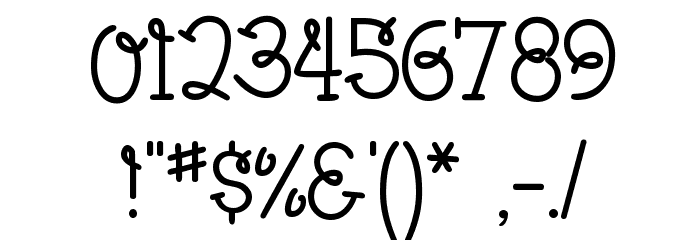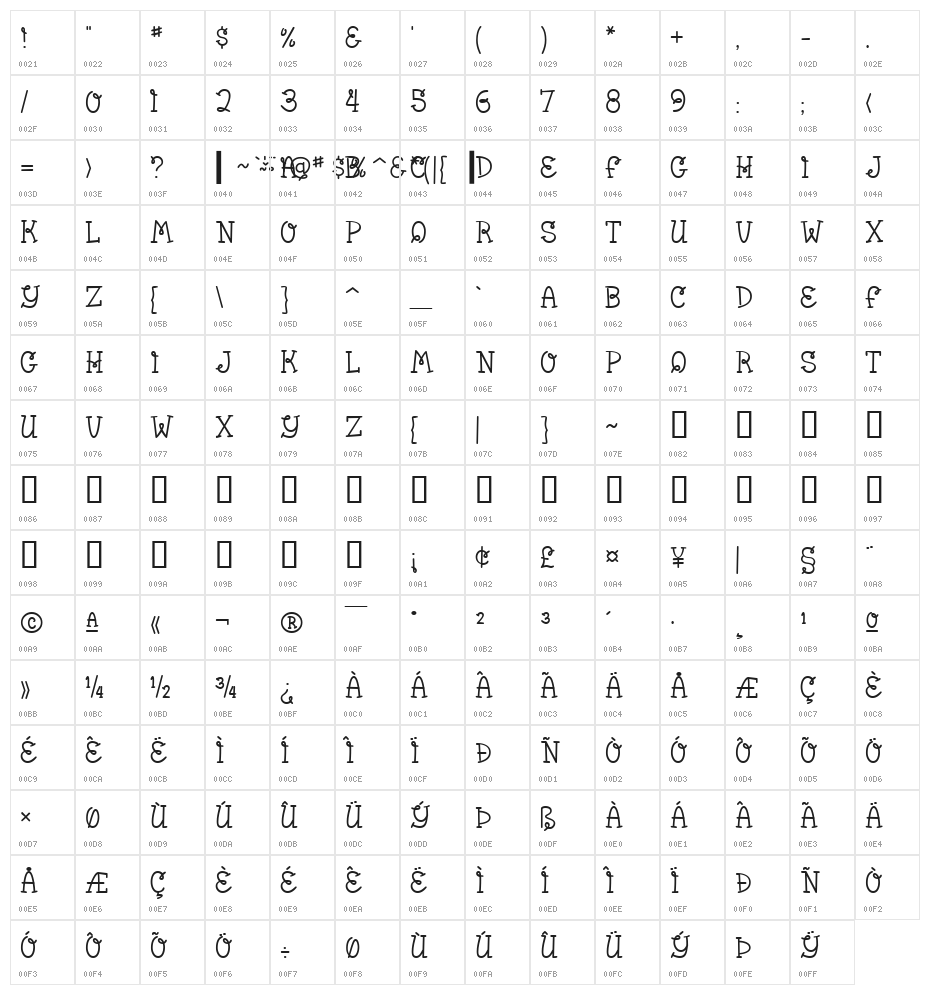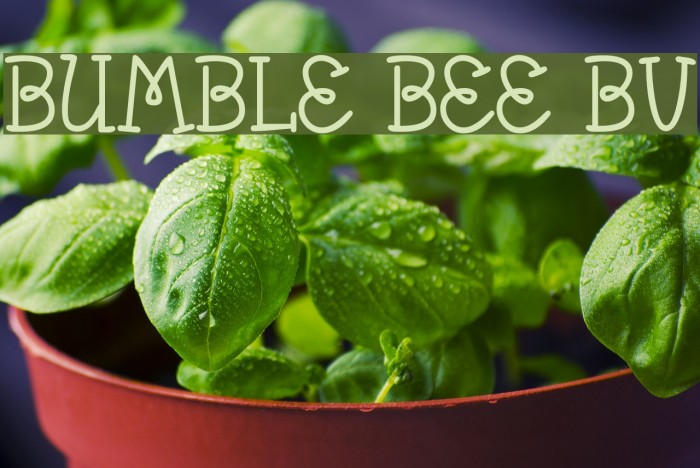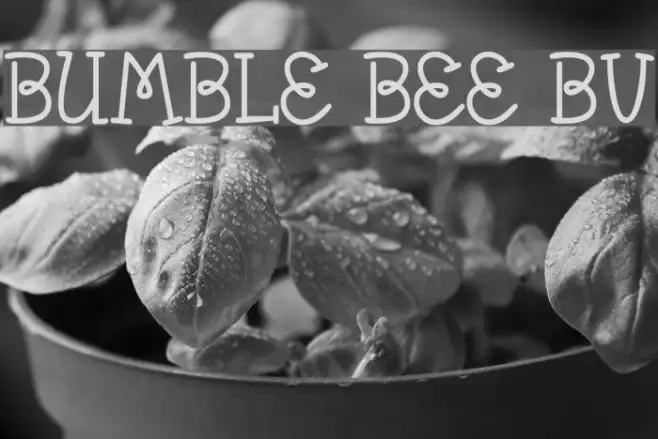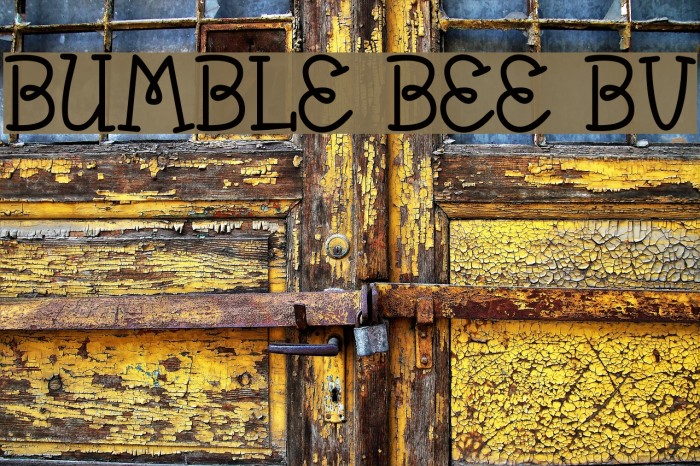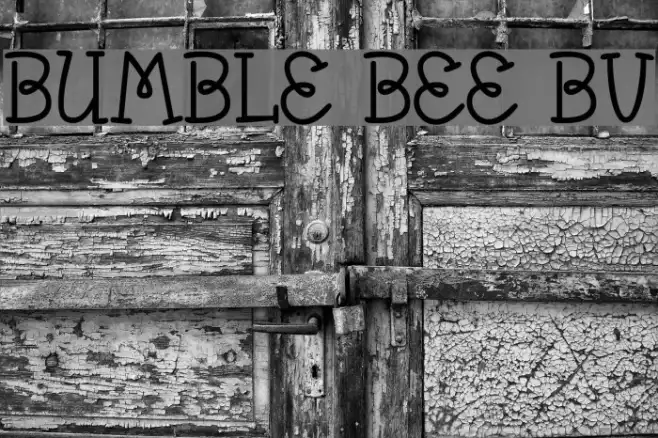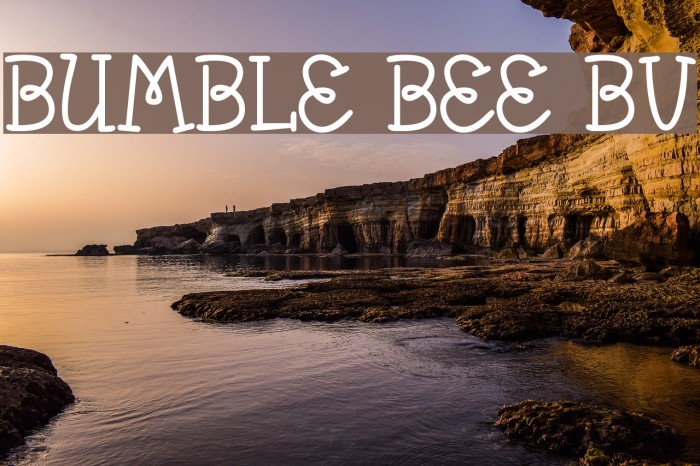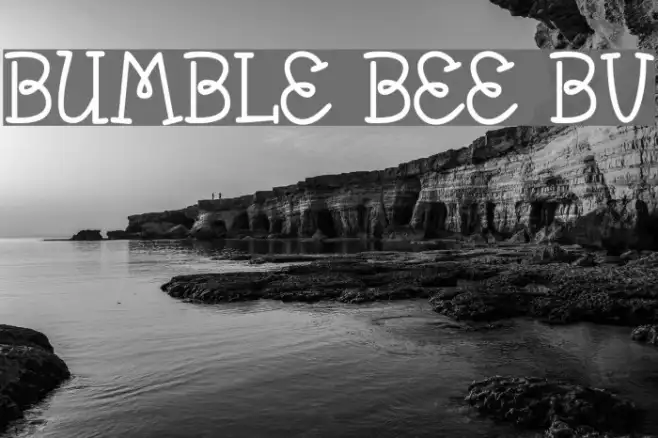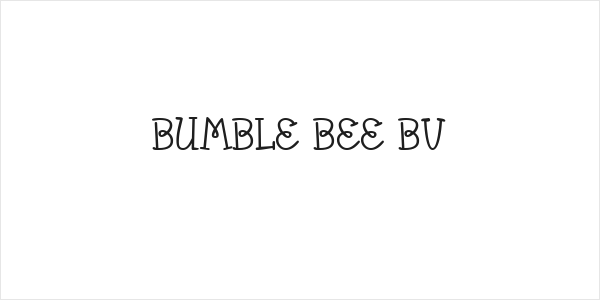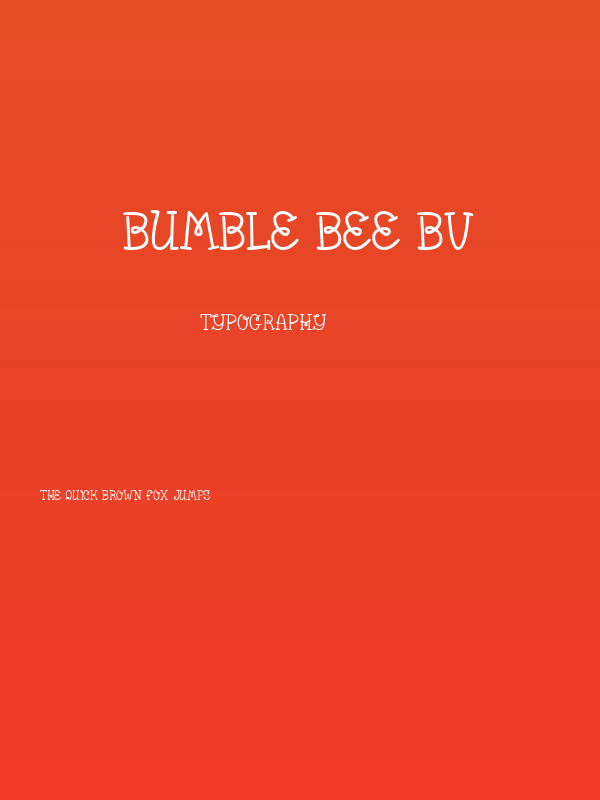
Bumble Bee BV Font
Bumble Bee BV Description
This font features a playful and whimsical design with a handwritten style. The characters are bold and rounded, giving them a friendly and approachable appearance. The strokes are consistent in thickness, contributing to a uniform look across all characters. The font includes both uppercase and lowercase letters, numerals, and a variety of special characters. Its unique style is characterized by slight curls and loops at the ends of the strokes, adding a touch of charm and creativity.